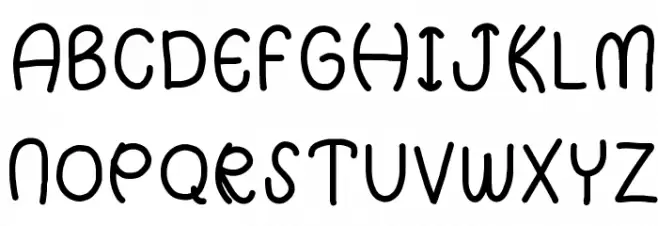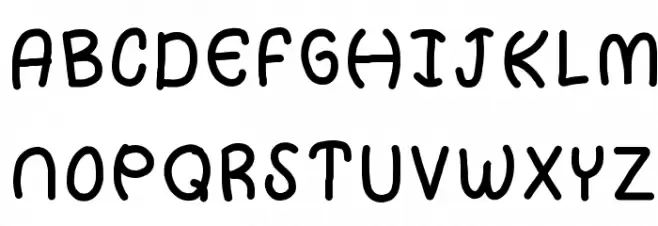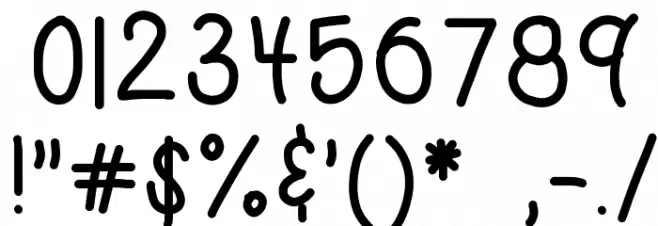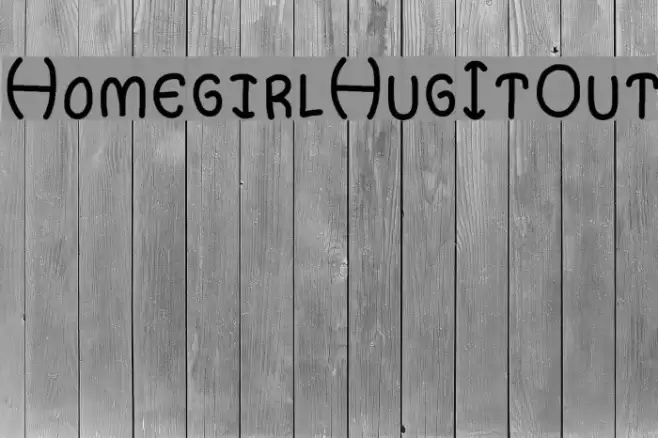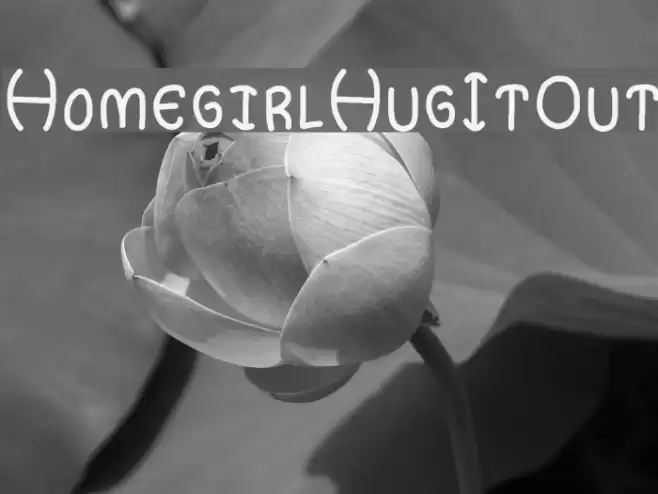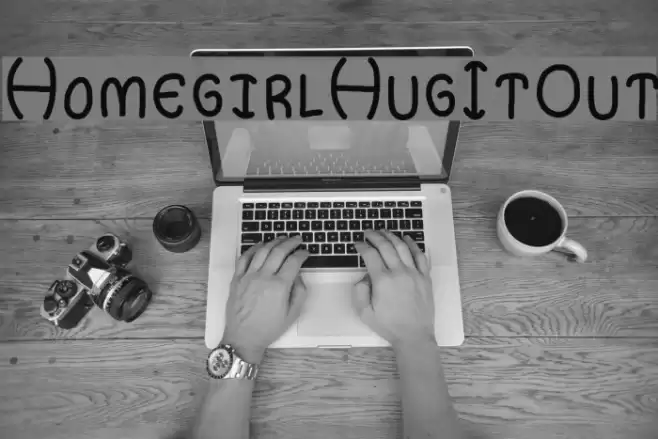
HomegirlHugItOut
This playful and rounded font features a handwritten style with a casual and friendly appearance. The letters are characterized by their smooth curves and consistent stroke width, giving it a cohesive and approachable look. The uppercase and lowercase letters maintain a uniform height, while the numbers and special characters blend seamlessly with the overall design. The font's informal nature makes it ideal for projects that require a personal touch or a relaxed vibe.
A playful, rounded handwritten font with a casual and friendly style.
- Proposed Projects: Ideal for greeting cards, children's books, casual branding, and social media graphics.
- Overall Style: Casual
- Use Case: Logos, Headlines, Informal Text